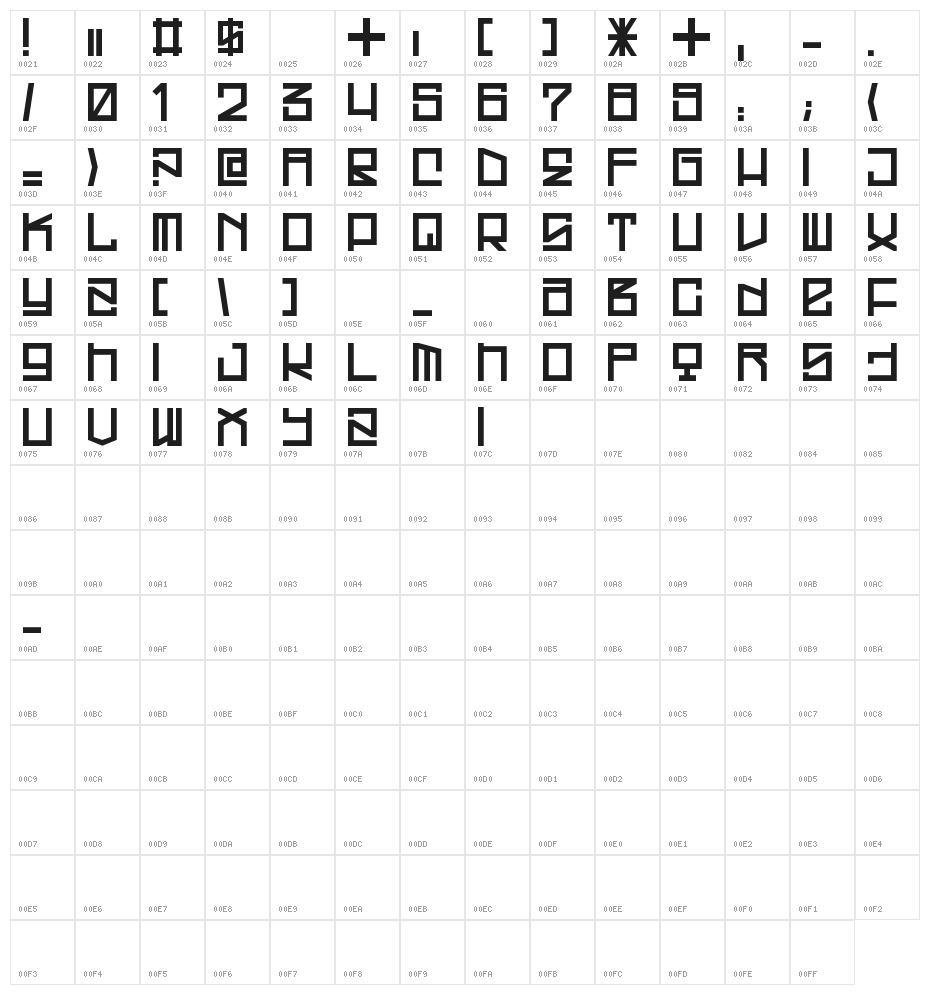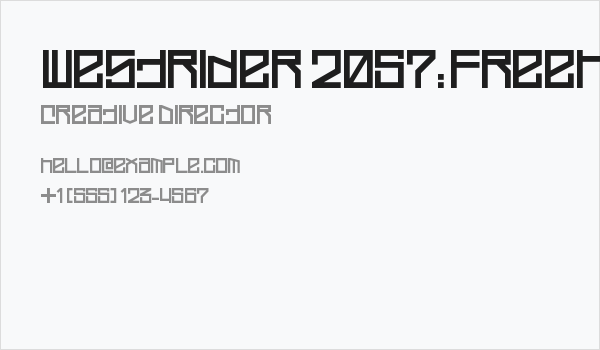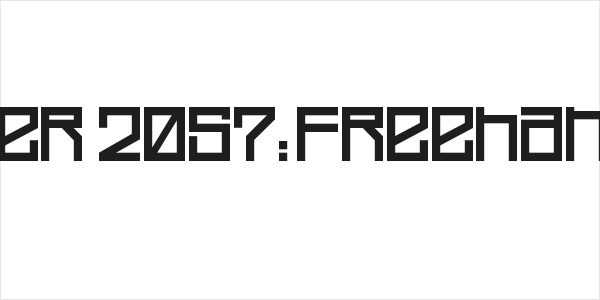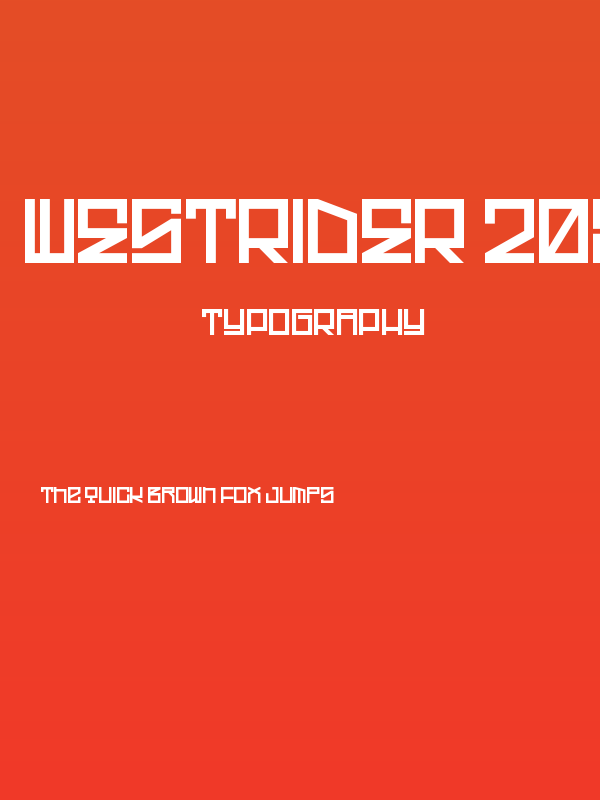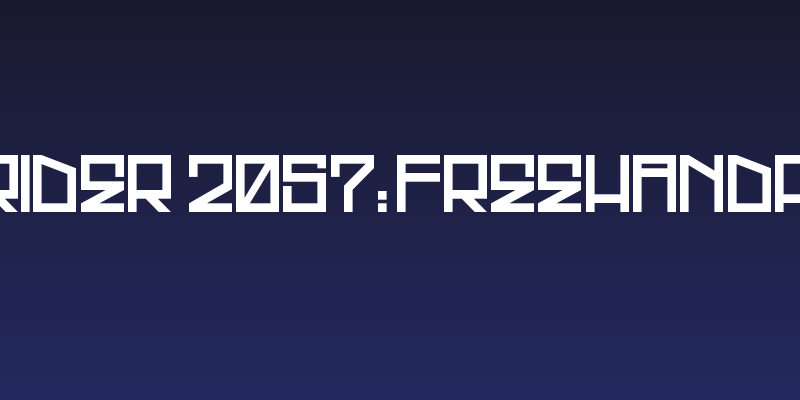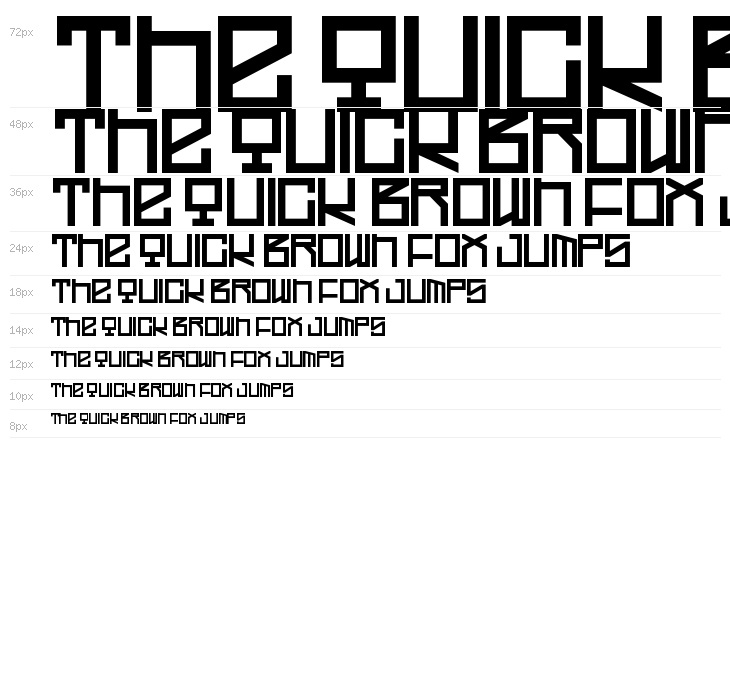
Westrider 2057:FreehandProfit Font
Westrider 2057:FreehandProfit Description
This font features a futuristic and geometric design, characterized by sharp angles and a bold presence. The uppercase and lowercase letters share a consistent style, with angular cuts and a blocky structure that gives a sense of modernity and innovation. The numbers and special characters maintain this aesthetic, ensuring a cohesive look across all elements. The font's design is reminiscent of digital or sci-fi themes, making it ideal for projects that require a contemporary and edgy appearance. Its strong lines and distinct shapes make it stand out, while the uniformity in character width provides a balanced and organized look.